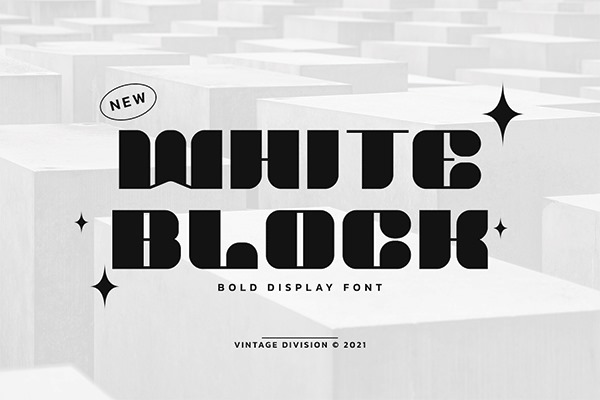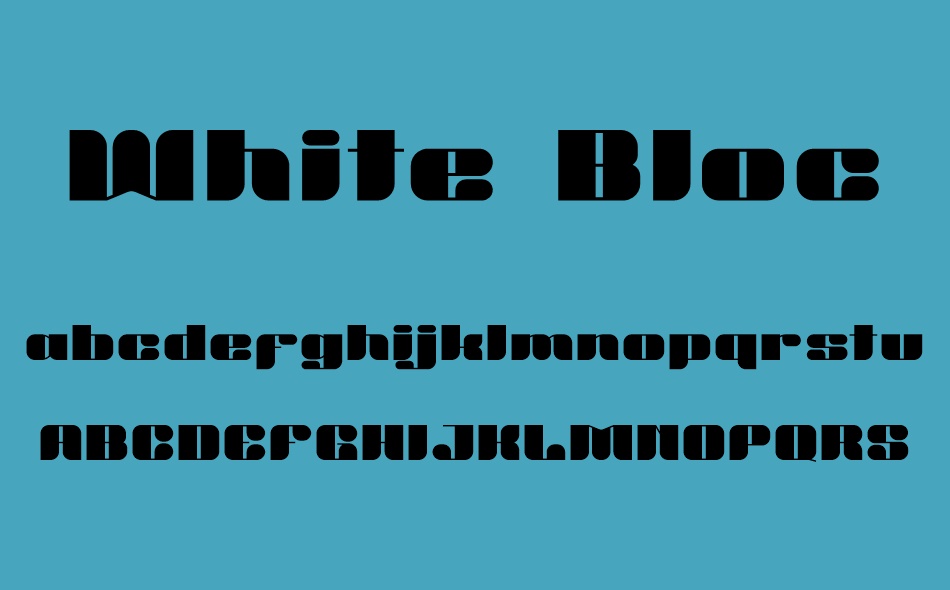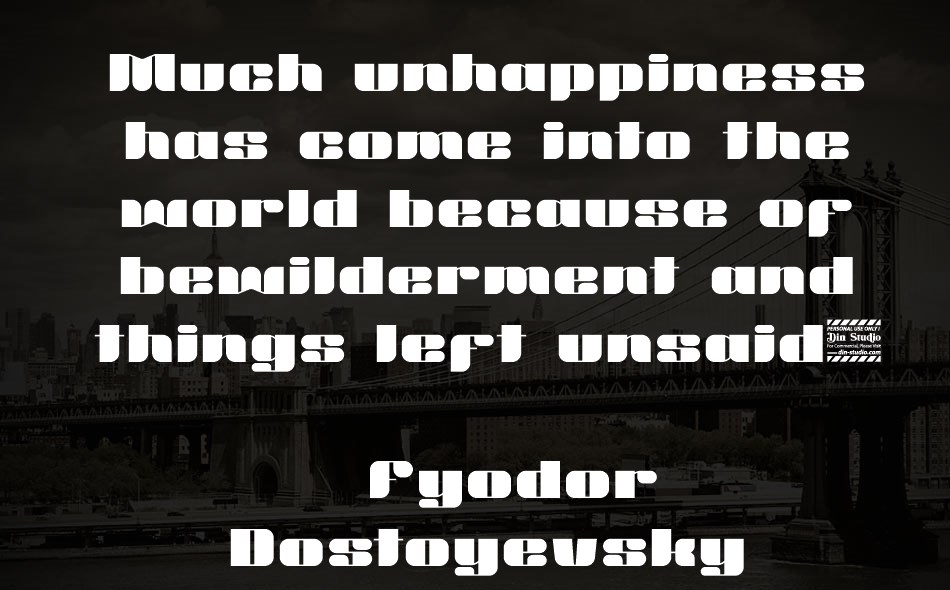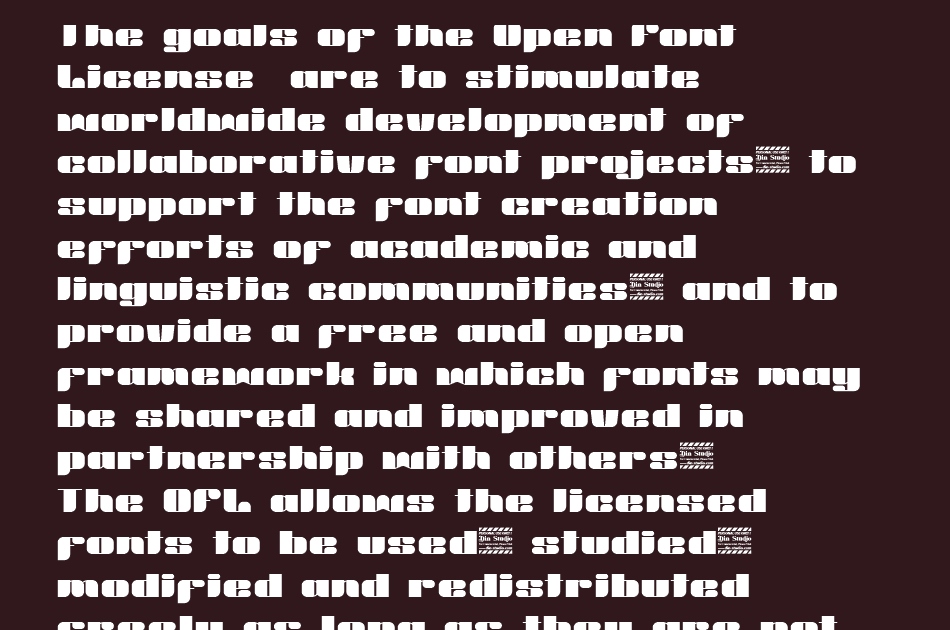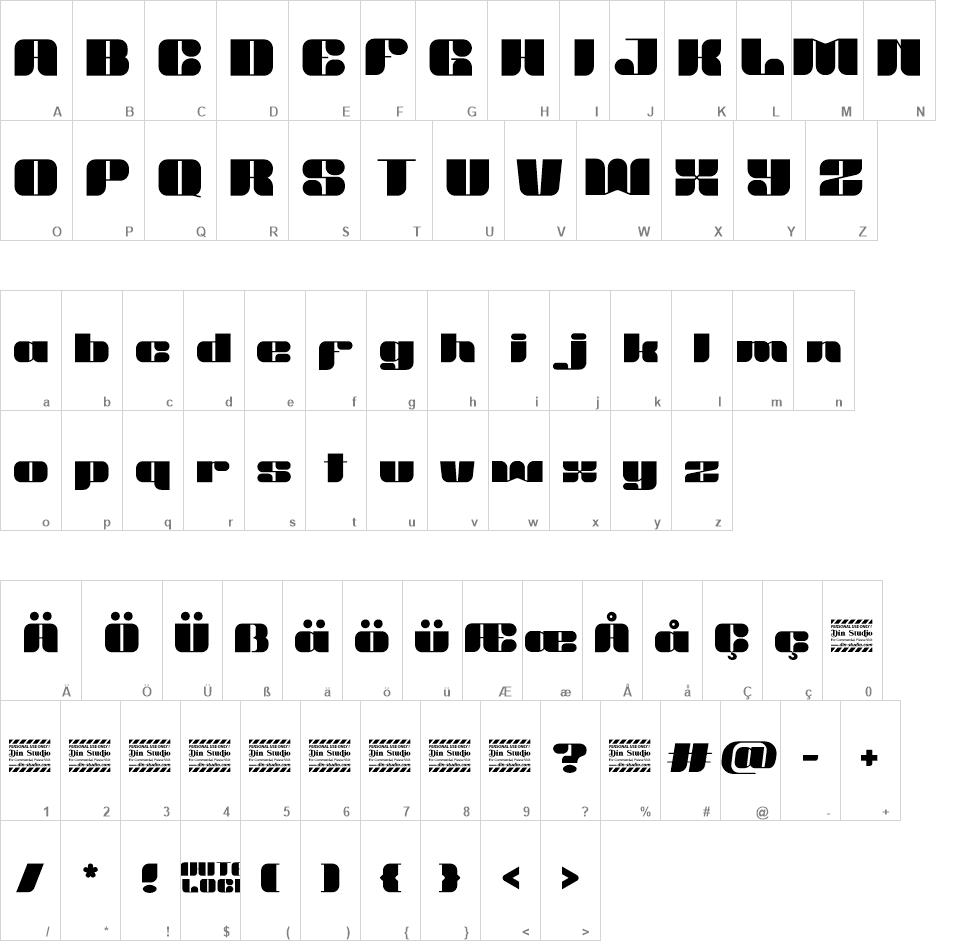
White Block font
White Block-A Display Font
White Block is a bold display font with a modern look. This display font is perfect for anything adventurous,
and direct. Designed primarily as a captivating font that easy to read but still stylish, A real head-turner for
your presentation, designs, branding, quotes, invitation, website illustrations, and much more.
Our font always includes Multilingual Options to make your branding globally acceptable.